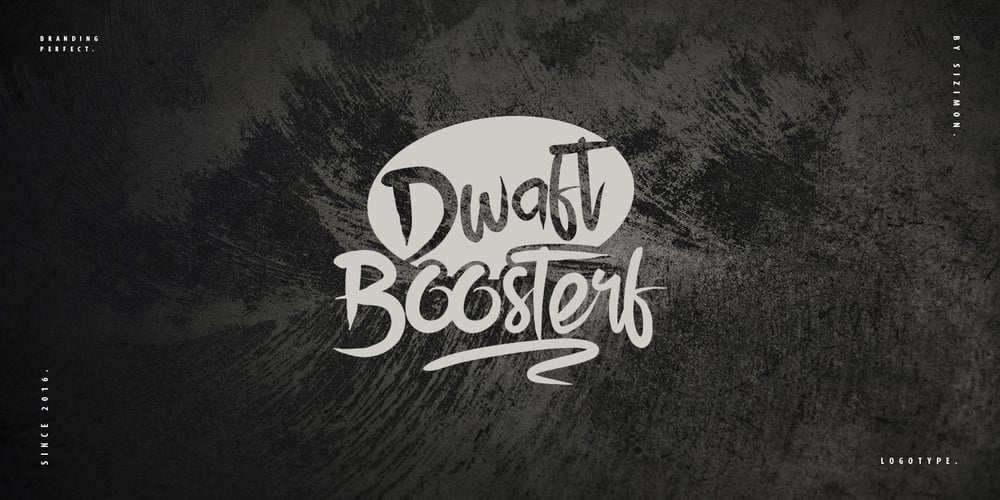
Bloodstone Font Family was designed by Faisal Tanjung and published by sizimon. Bloodstone contains 1 styles and family package options. Bloodstone is strong, sharp and have a painted look feel. Suitable for digital lettering, branding materials, t-shirt, print, business cards, quotes, logo, poster, t-shirt, nature photography and applicable for any graphic design. It contains a full set of lower & uppercase letters, a large range of punctuation, numerals, and multilingual support, also has alternative characters.